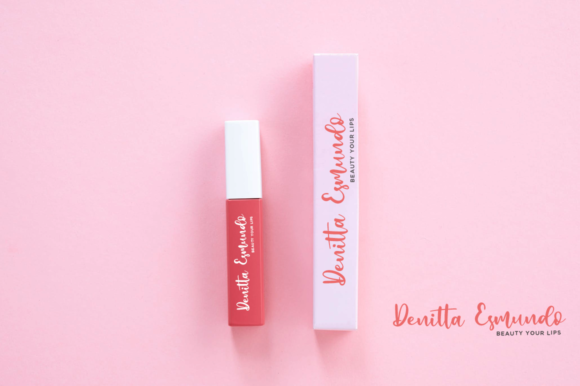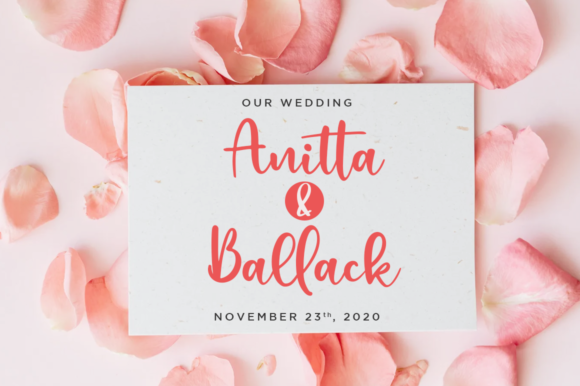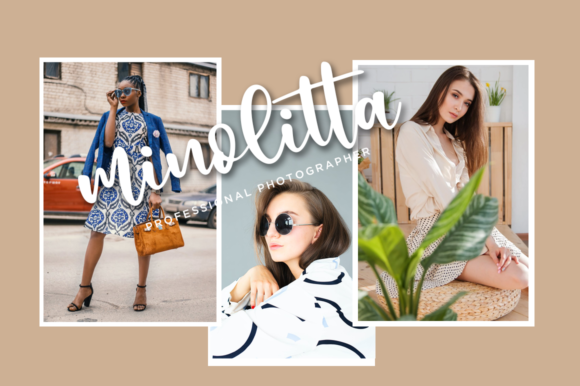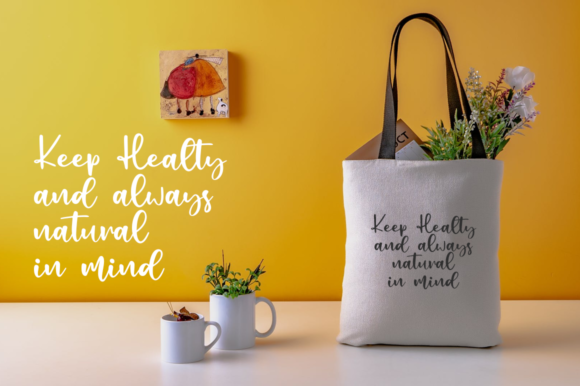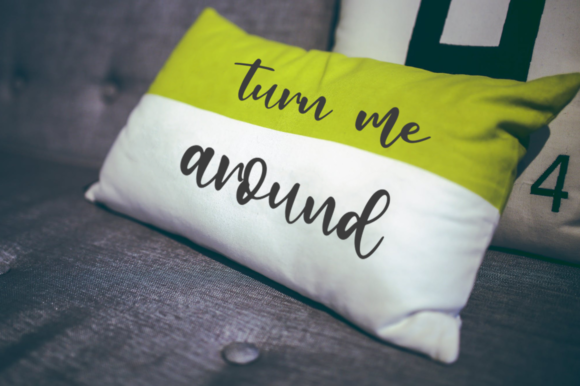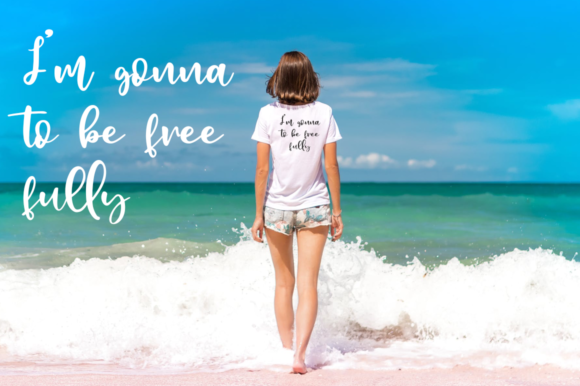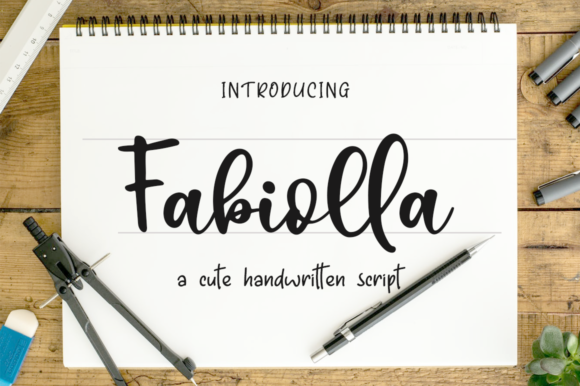
Fabiolla Font: The Epitome of Delicate Elegance
In the realm of typography, few fonts have managed to capture the essence of elegance and sophistication as effectively as Fabiolla. This exquisite handwritten font has been making waves in the design community, and for good reason. Its delicate, well-rounded letters and incredibly versatile style make it a masterpiece that can elevate any design project to new heights.
The Characteristics of Fabiolla Font
Fabiolla is a delicate and elegant handwritten font that boasts a distinct character. Its letters are carefully crafted to exude a sense of refinement and poise, making it an ideal choice for designers who want to add a touch of sophistication to their work. The font’s well-rounded letters are a standout feature, providing a sense of fluidity and continuity that is hard to find in other fonts.
The Versatility of Fabiolla Font
One of the most significant advantages of Fabiolla is its incredible versatility. This font can be used in a wide range of design projects, from elegant wedding invitations and sophisticated business cards to stunning posters and eye-catching social media graphics. Whether you’re a seasoned designer or a crafty DIY enthusiast, Fabiolla is sure to become your go-to font for creating spectacular designs.
Why Designers and Crafters Love Fabiolla Font
So, what makes Fabiolla so beloved among designers and crafters? For starters, its delicate elegance provides a perfect backdrop for creative expression. The font’s subtle nuances and intricate details allow designers to add their personal touch, making each project truly unique. Additionally, Fabiolla’s versatility ensures that it can be used in various design contexts, from digital to print, without losing its charm.
Tips for Using Fabiolla Font Effectively
To make the most of Fabiolla’s elegance and versatility, here are a few tips to keep in mind:
• Pair it with contrasting fonts: Combine Fabiolla with bold, sans-serif fonts to create striking visual contrasts and add depth to your designs.
• Experiment with colors: Fabiolla looks stunning in a range of colors, from soft pastels to rich jewel tones. Don’t be afraid to try out different hues to find the perfect match for your design.
• Play with textures: Add an extra layer of interest to your designs by incorporating textures and patterns that complement Fabiolla’s delicate elegance.
Fabiolla Font in the World of Design
Fabiolla is more than just a font – it’s a design statement. Its presence can instantly elevate a project from ordinary to extraordinary, making it a favorite among designers and crafters who want to create something truly special. Whether you’re working on a branding project, a marketing campaign, or a personal craft project, Fabiolla is sure to make a lasting impression.
In conclusion, Fabiolla font is a true masterpiece that deserves a spot in every designer’s toolkit. Its delicate elegance, versatility, and unique character make it an ideal choice for creating spectacular designs that leave a lasting impression. So, fall in love with Fabiolla’s charm and use it to take your designs to new heights!
Get Ready to Fall in Love with Fabiolla Font
Ready to experience the magic of Fabiolla for yourself? With its delicate elegance and incredibly versatile style, this font is sure to capture your heart. Join the ranks of designers and crafters who have already fallen in love with Fabiolla, and discover a world of creative possibilities at your fingertips.